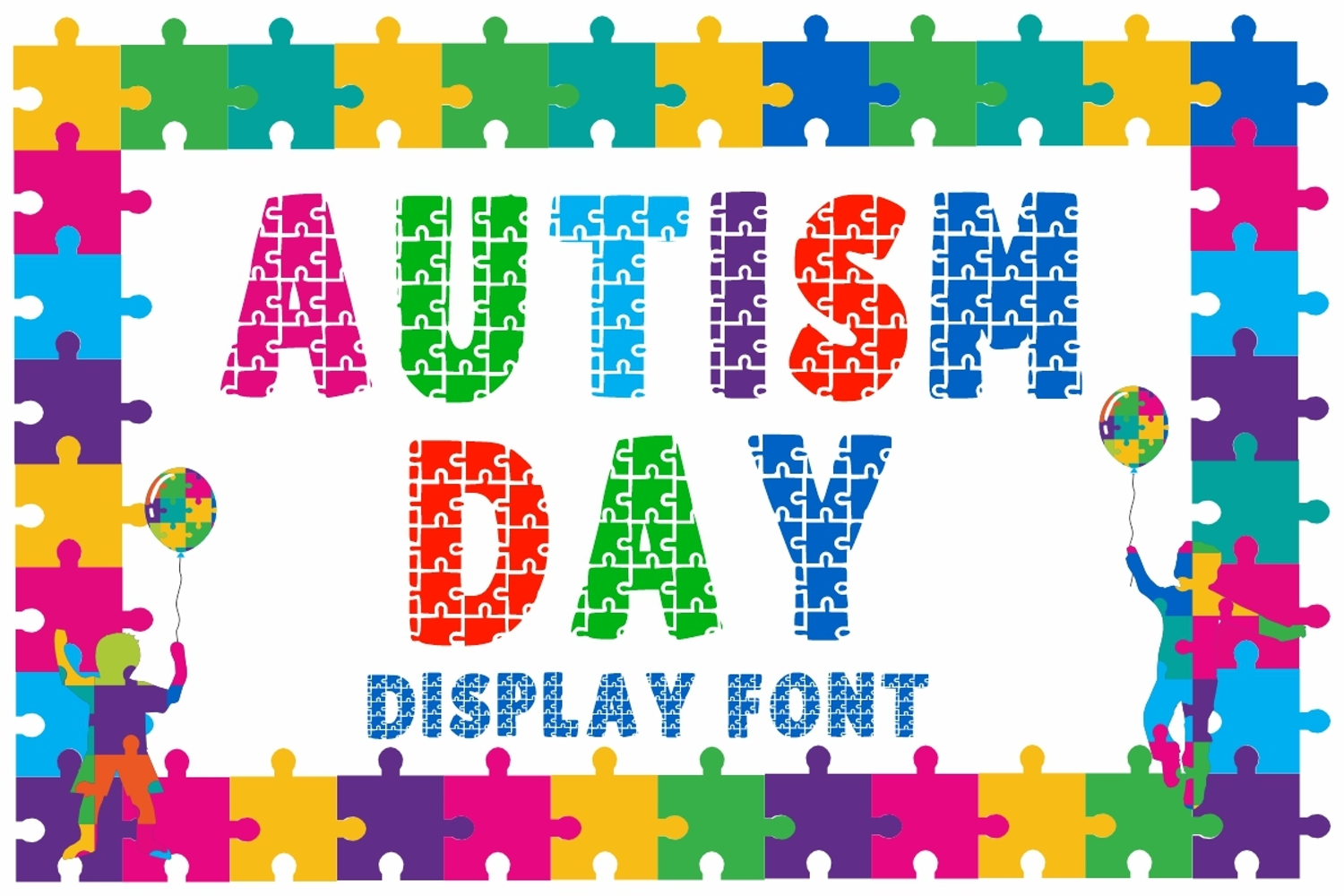
Autism Day
Autism Day font, fun and good font with puzzle outline. will make this font a go-to choice for each of your creations that require a relaxed touch.